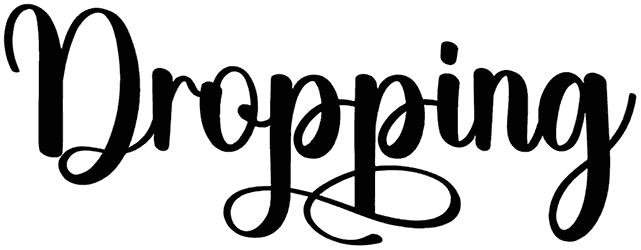
Dropping Font
At this point, you have a classic and classy offer for your novel layout that can attract you. This love font consists of a twisty and lovely letter style and can convey a unique vibe. With an almost full cover of characters, Dropping would be a perfect item for numerous projects such as planners, postcards, branding, apparel, and so on.